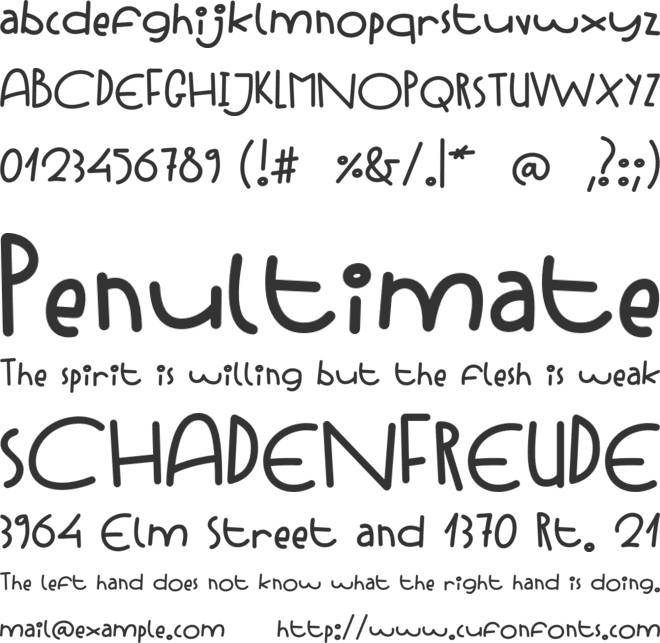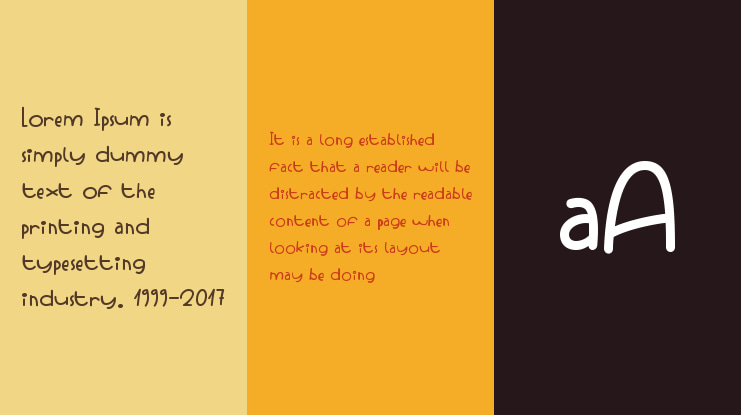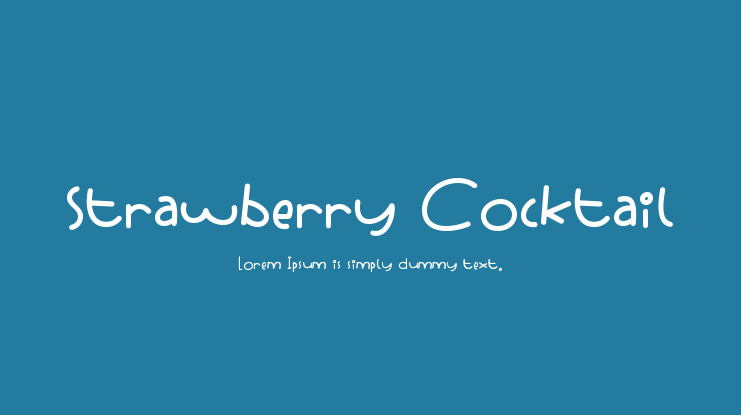
Strawberry Cocktail Font
Roland Huse and Bela Bolovits
Strawberry Cocktail is a stick style straight hand drawn sans serif. You can create nice handmade typography with it either alone or combining it with other scripts for the best result depending on your project, whether it be
* logos, * printed quotes, * invitations, * cards, * Instagram posts.